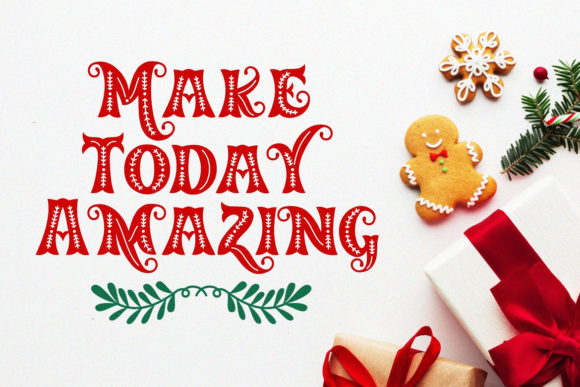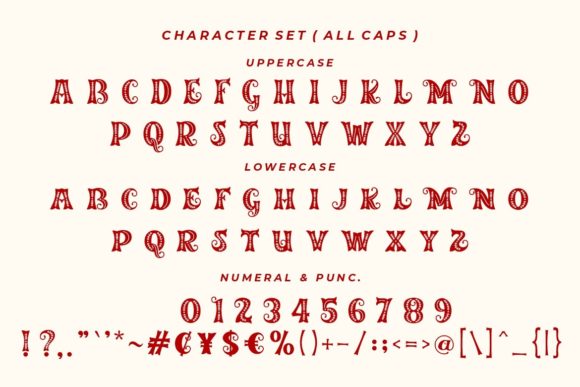
Freebie Wednesday: Merry Jolly Font
Merry Jolly is a cool and retro styled decorative font. Use this font to add that special touch to any design idea you can think of!